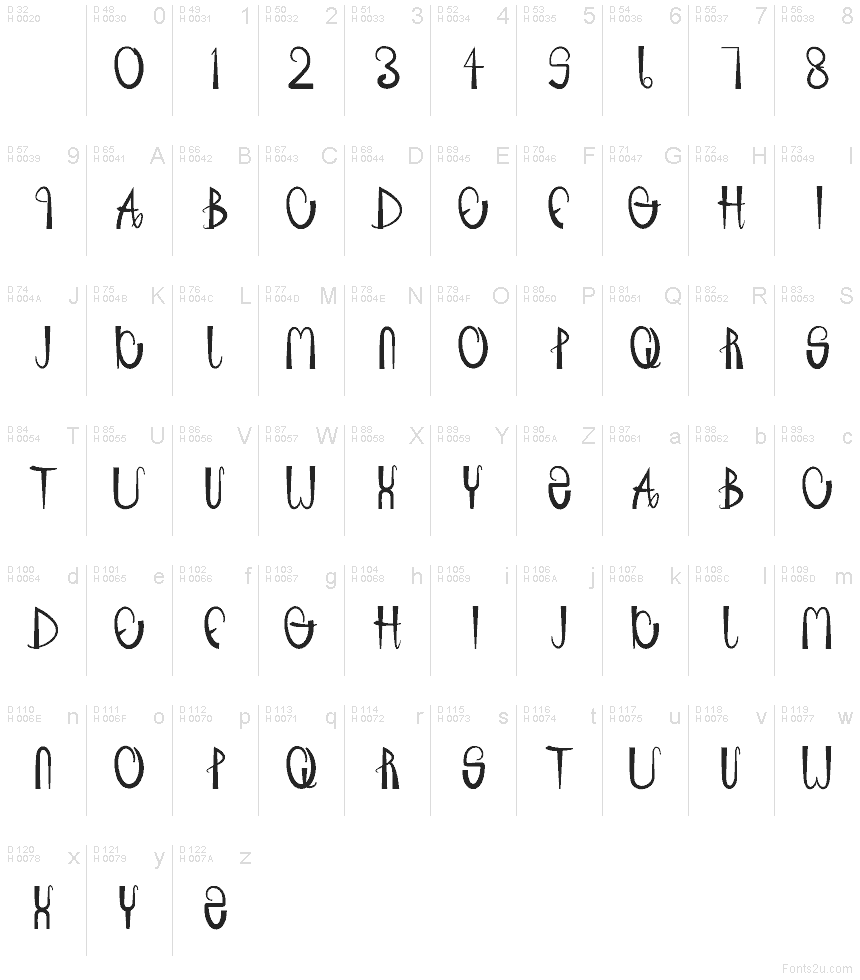
Warp
Warp font by Woramet Tompudsa is a free decorative display font. It stands out with elastic, tapering strokes and playful, corkscrew terminals that bend letters as if they’ve been heated and gently twisted. The contrast feels inky and alive—tall, slender stems stretch upward while crossbars tilt and swing—giving headlines a surreal, kinetic snap without losing legibility.
Using Warp, titles instantly gain a quirky, off-kilter rhythm that draws the eye from afar. This free font shines on event posters, album art, indie game titles, festival branding, book covers, and motion graphics where a touch of strange is the point. Keep it large for maximum curl detail, and pair with a clean geometric sans for body copy to ground the whimsy.